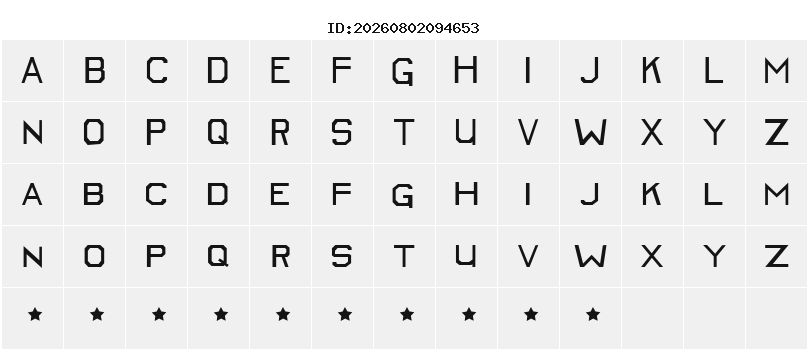
About MCAuto.ttf
MCAuto.ttf is a modern, elegant sans-serif font designed for ultimate readability and visual harmony. Perfect for branding, headlines, web design, and print materials.